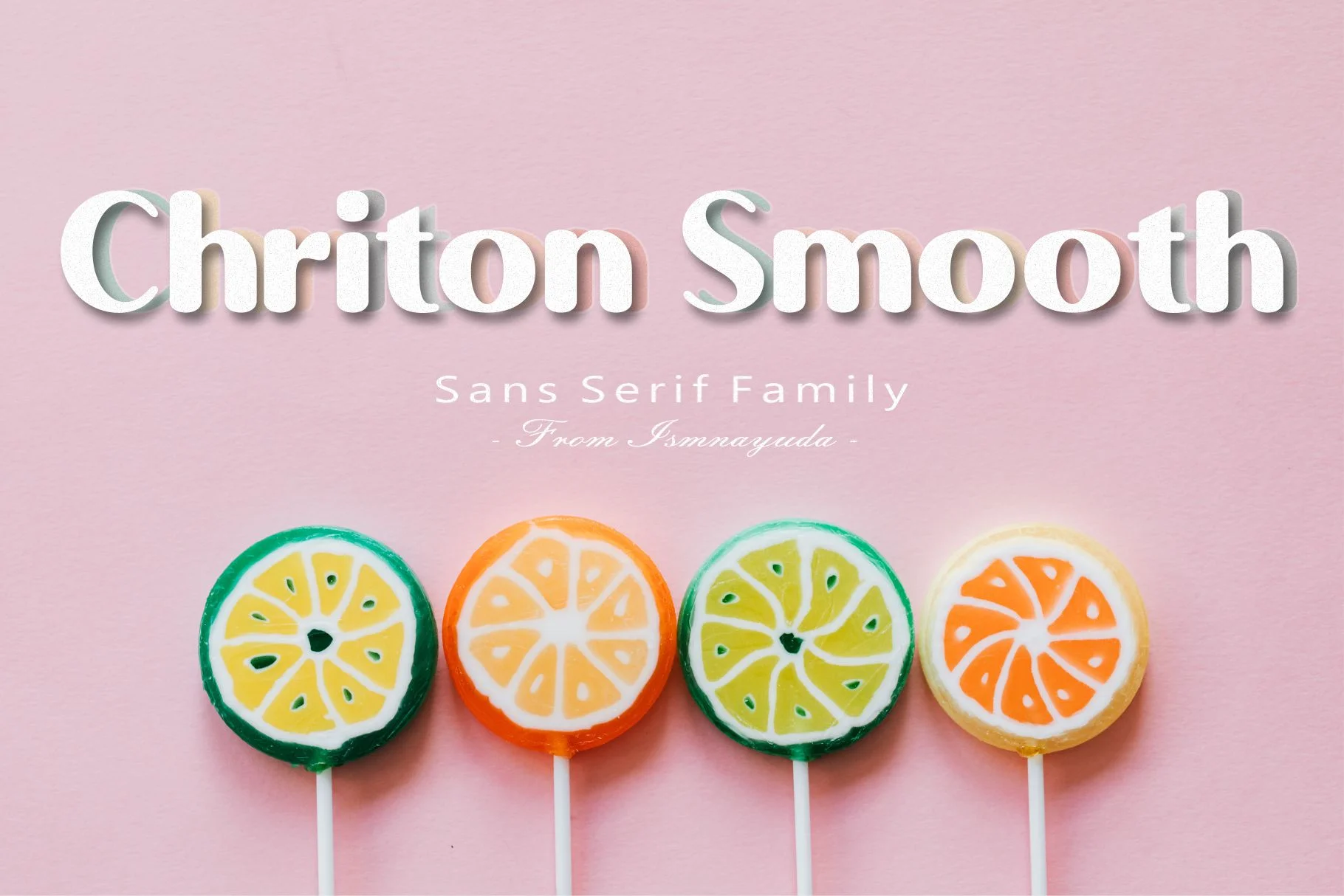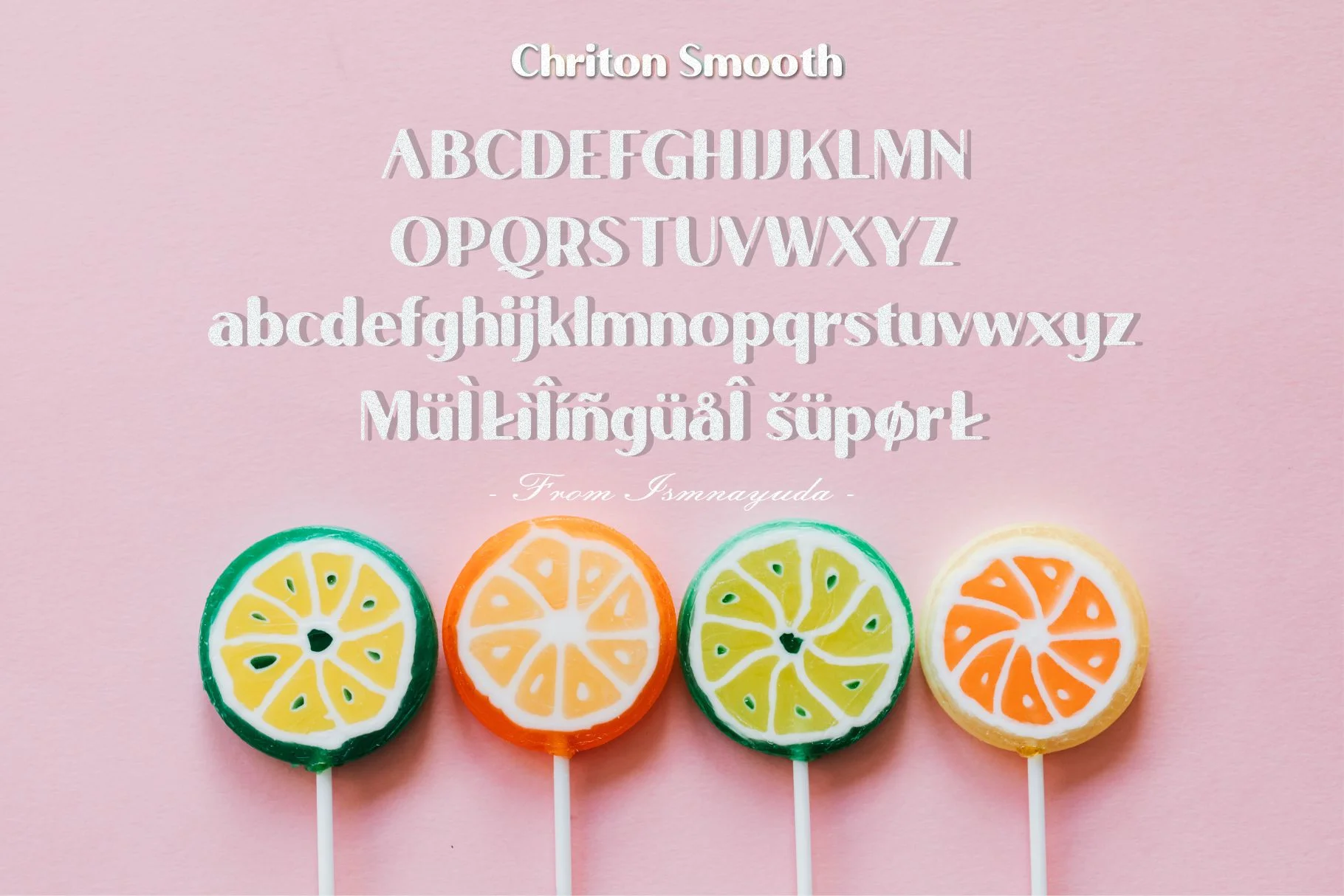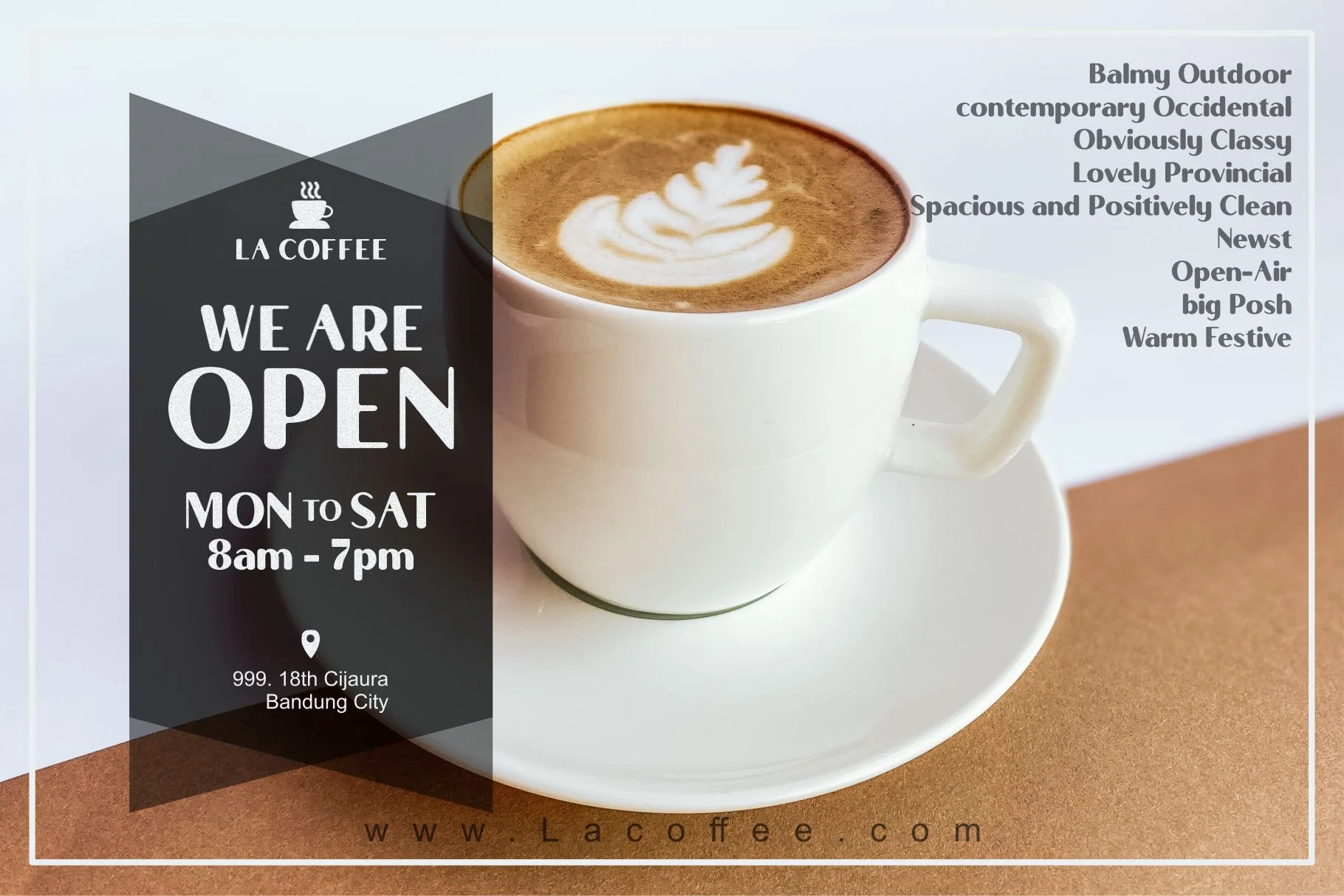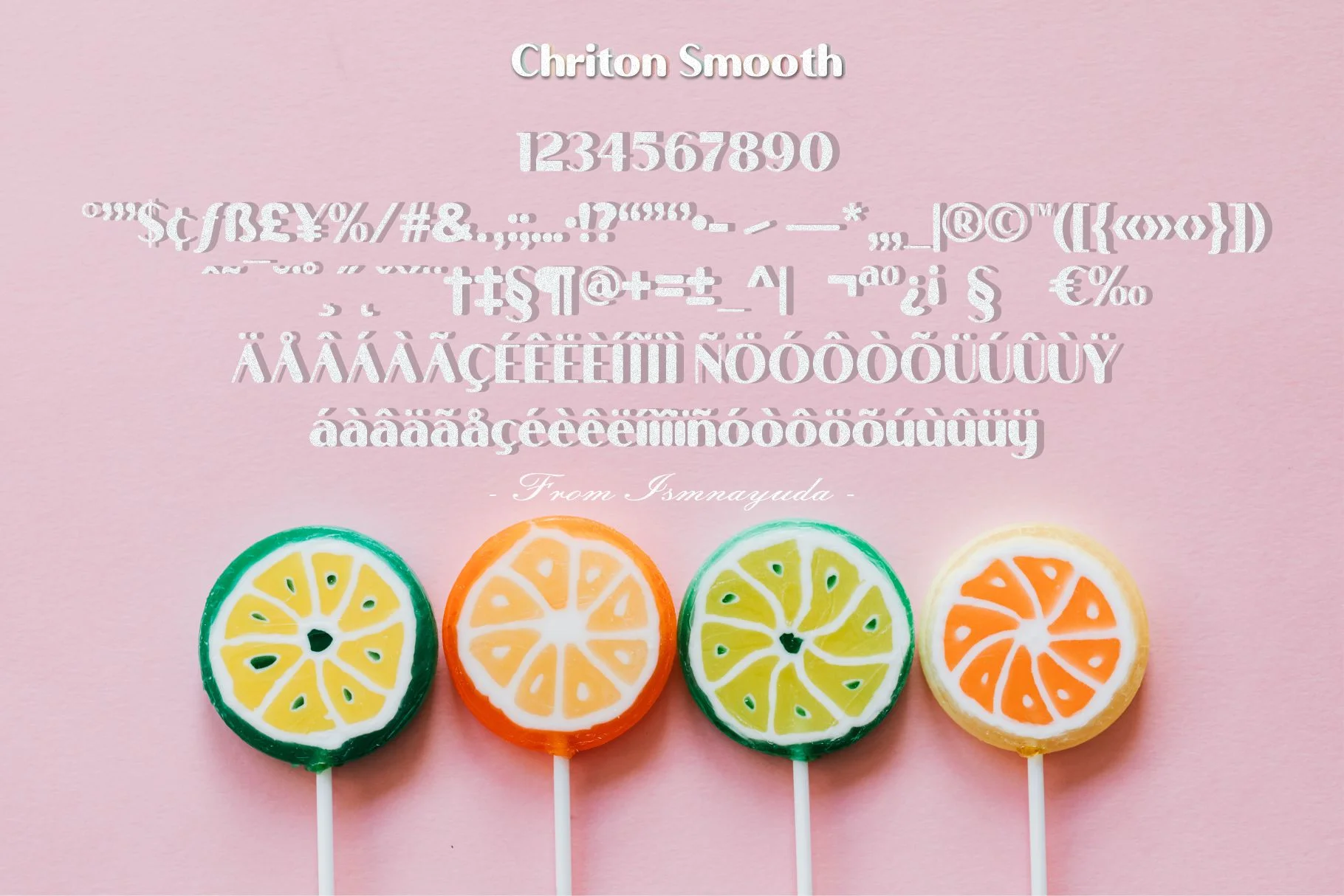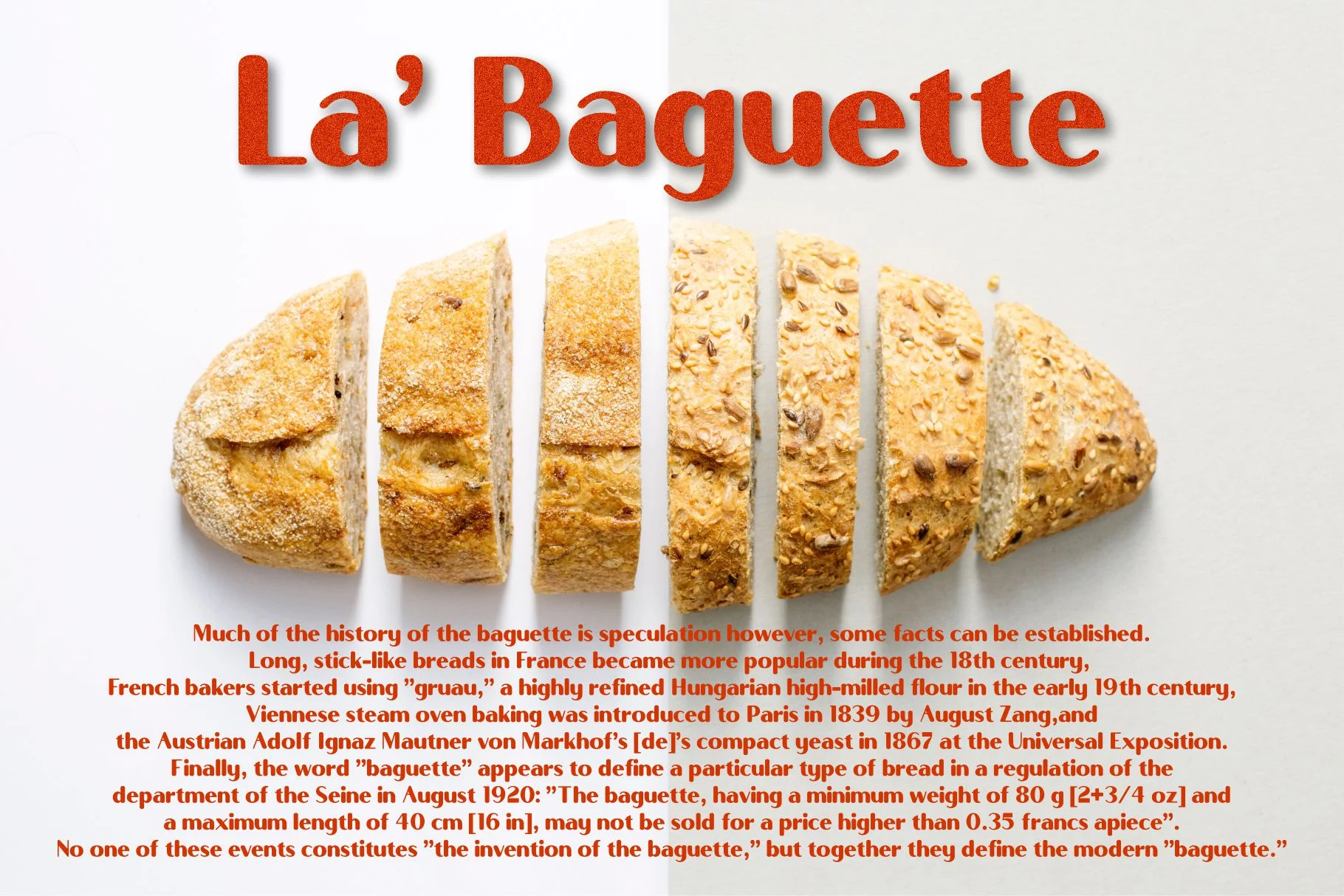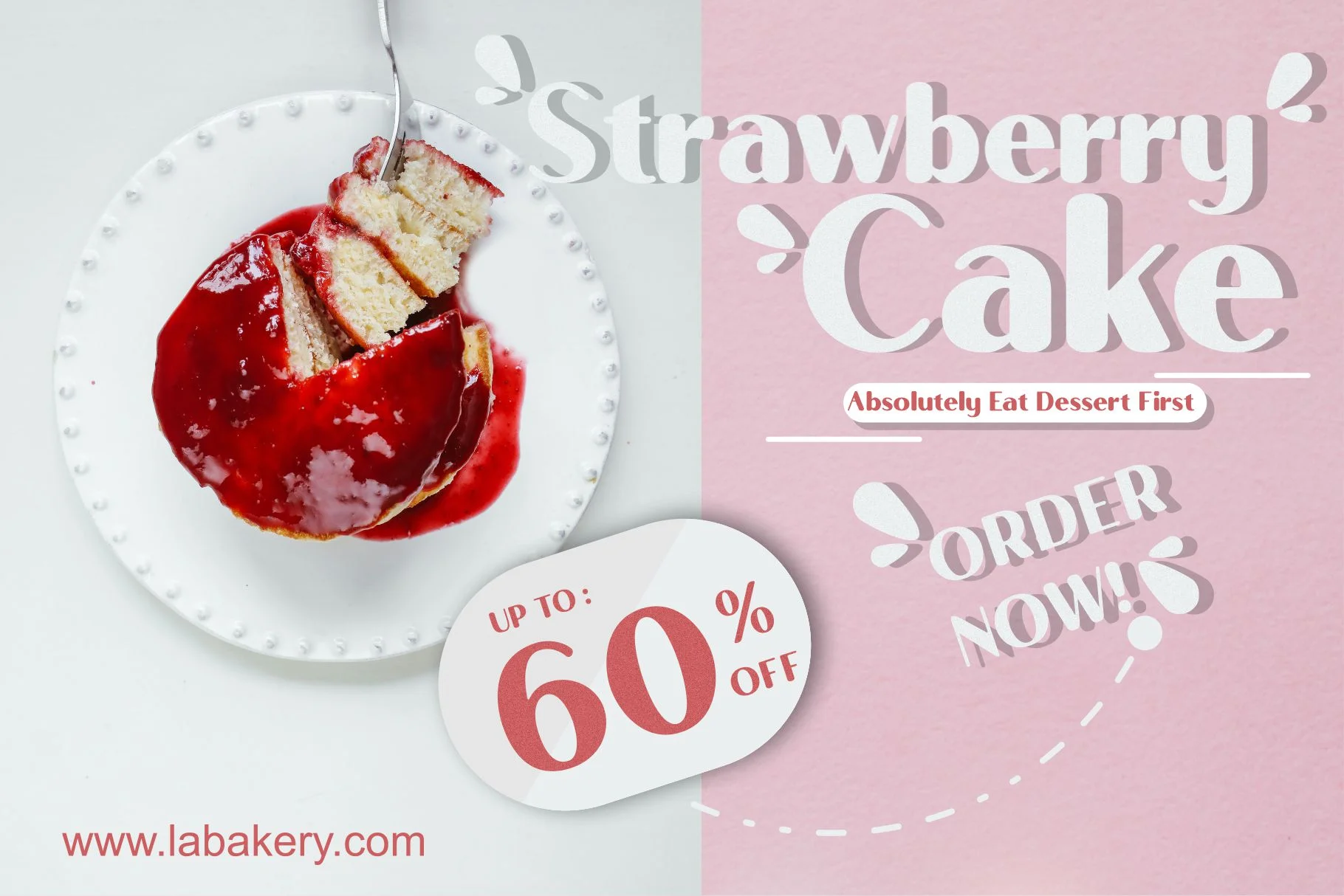
Chriton Smooth
Chriton Smooth is characterized by its clean, minimalist lines that exude a sense of modern sophistication and elegance. Its graceful and polished appearance is designed to add a touch of class to high-end projects. The font family's smooth modulation and sleek
Its versatility makes it an excellent choice for a variety of professional and creative applications, including:
- Branding & Identity: Ideal for luxury fashion brands and corporate visual identities.
- Editorial Design: Perfect for high-end magazine layouts and digital interfaces.
- Marketing Material: Its polished look works well for promotional posters, invitations, and product packaging.